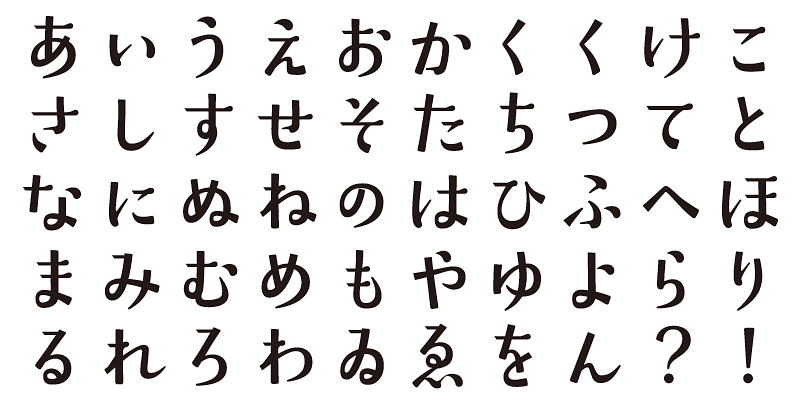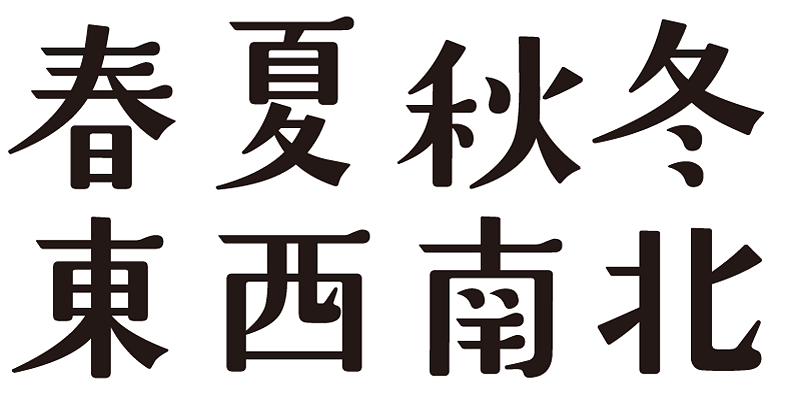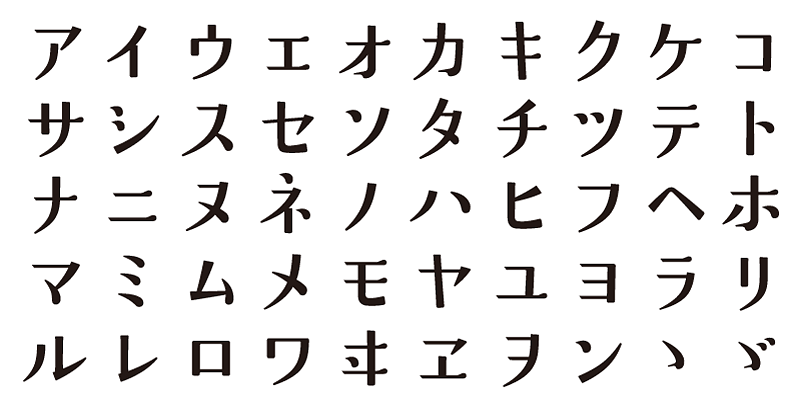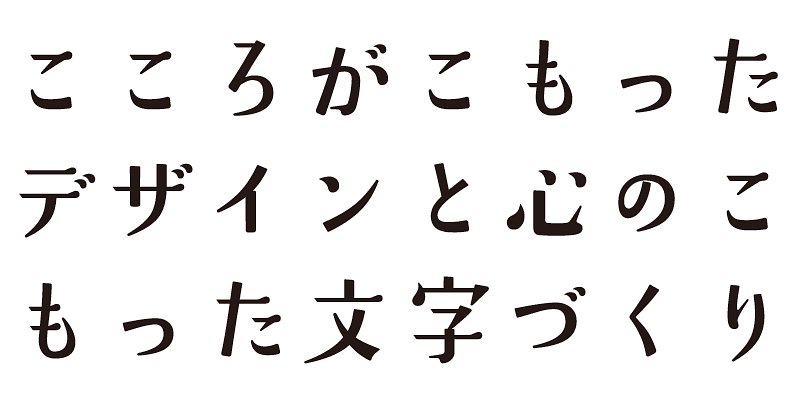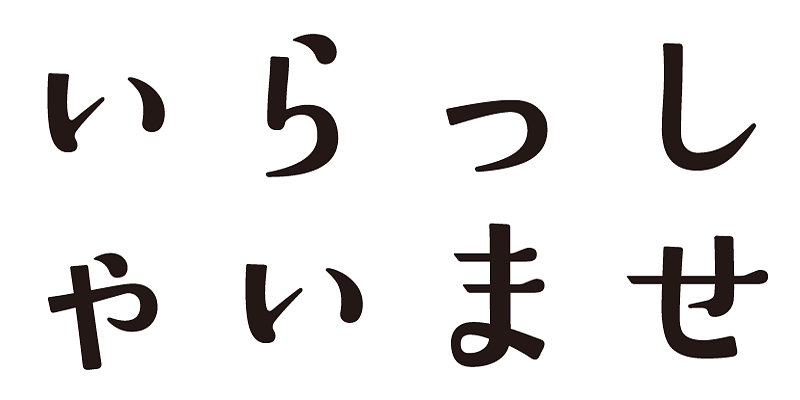
This is a Mincho-style design that gives the impression of light, graceful movement - a typeface with a neat and refreshing image.
Each font in this typeface family includes 1,000 kanji characters, as well as hiragana, katakana, alphanumeric characters, and punctuation marks.
We design typefaces with the hope that they will add underlying meaning to words expressed. We wish the user to feel good and experience comfort and joy when using these typefaces.